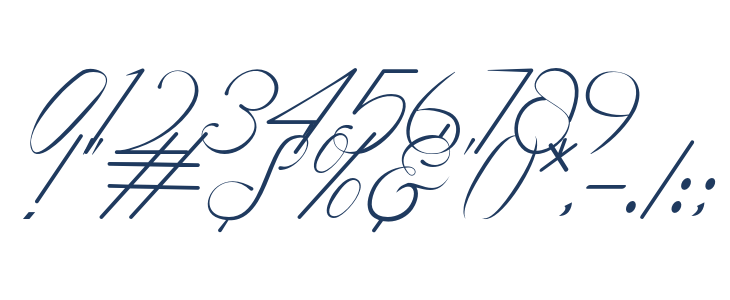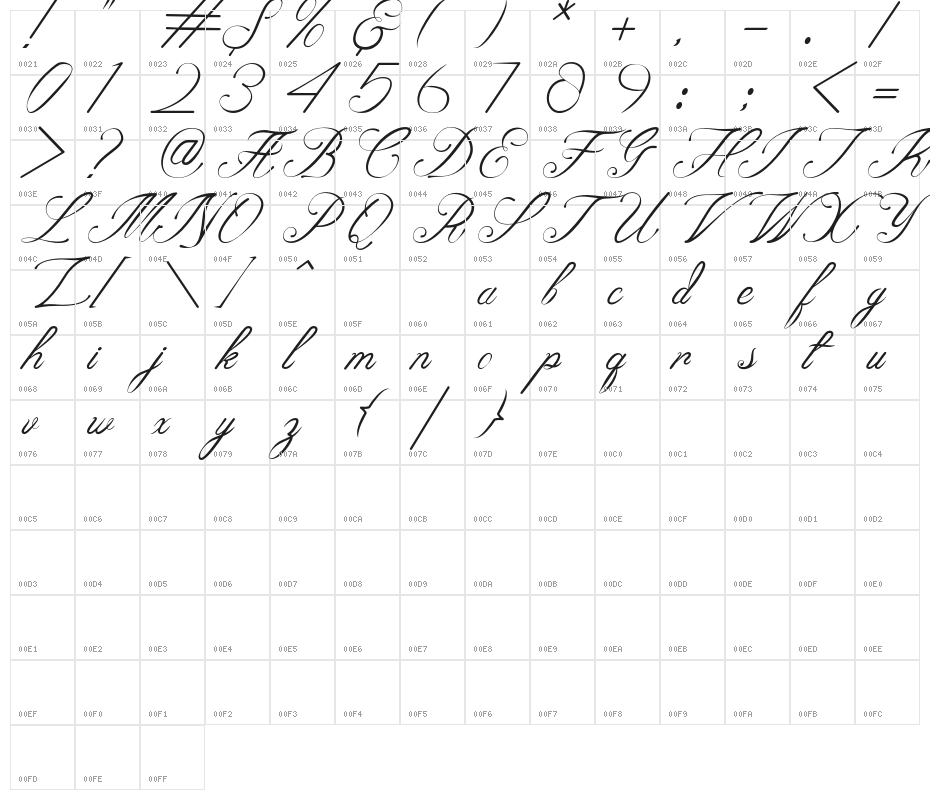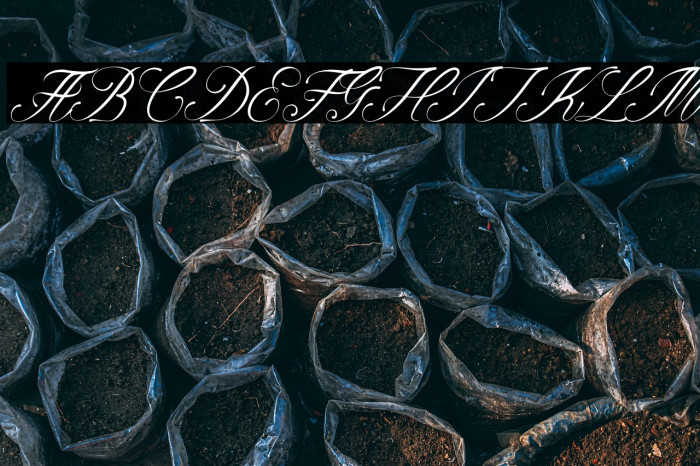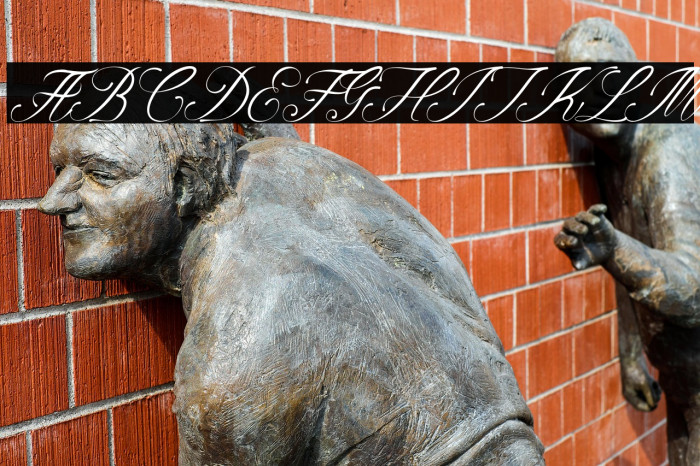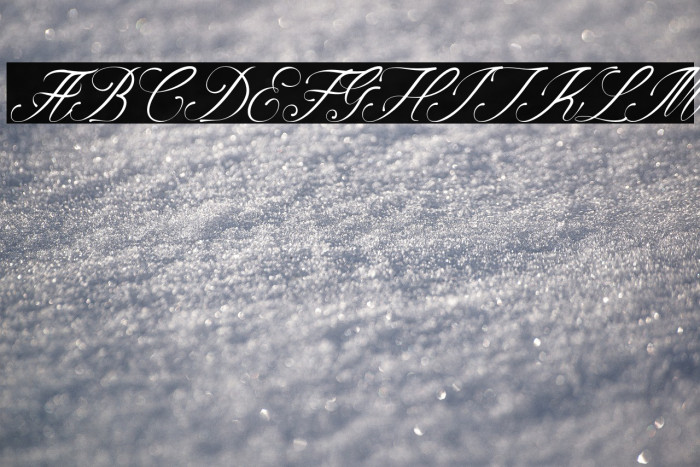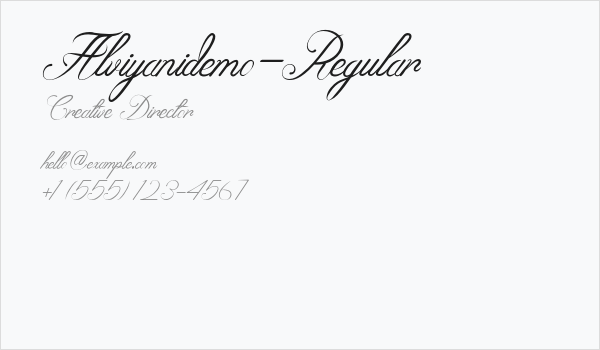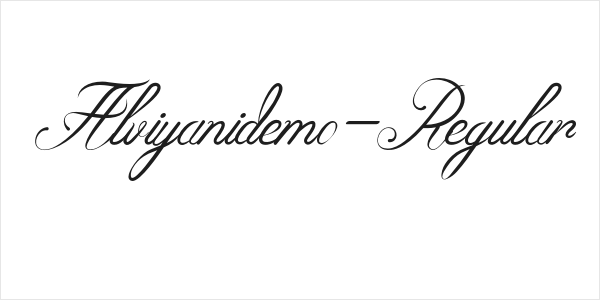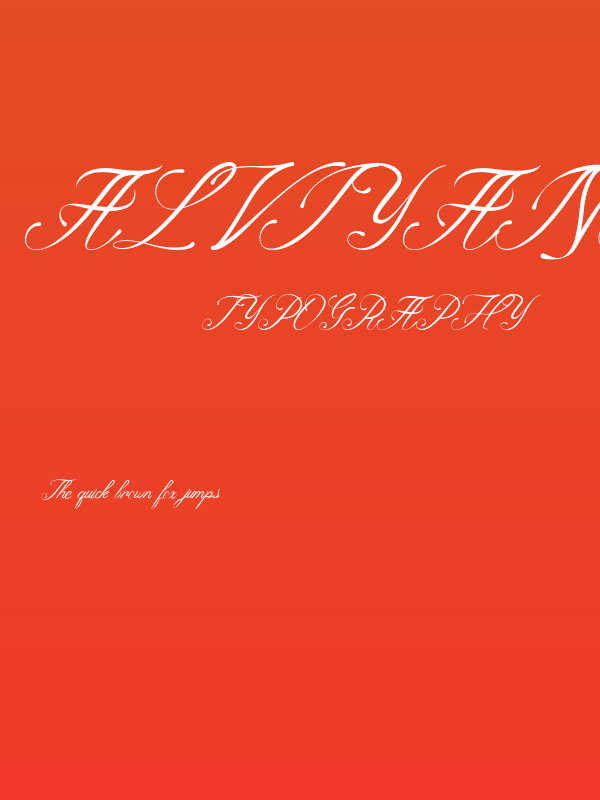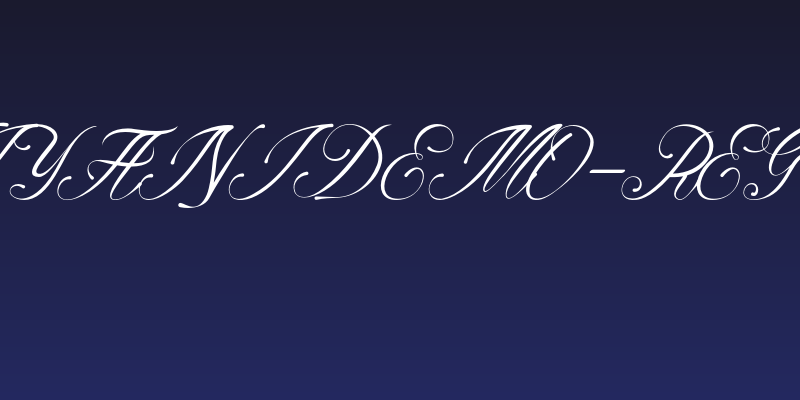
Alviyanidemo-Regular Font
Alviyanidemo-Regular Description
This elegant script font features flowing, interconnected letters with a classic and sophisticated appearance. The uppercase letters are adorned with intricate swashes and flourishes, adding a touch of formality and grace. The lowercase letters maintain a smooth, cursive style that complements the uppercase, creating a harmonious balance. The numerals are designed with a similar flair, ensuring consistency throughout the typeface. Special characters are included, each crafted with the same attention to detail, making this font versatile for various design needs.
| Proposed Projects | Ideal for wedding invitations, elegant branding, luxury packaging, and formal event programs. |